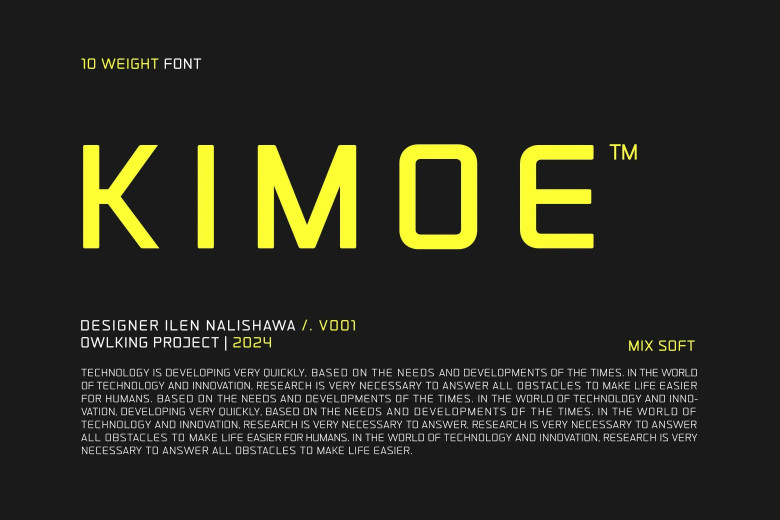
Kimoe Soft 001 Font Family
Kimoe Soft 001 Font Family is a modern font type with futuristic series rounded corners. These fonts are more professional, come with 10 styles – black, thin black too extra black, and excellent for great typographic experimenting with different designs, changing their features and great for displays and short phrases.
Kimoe Soft 001 Sans Serif Font Family